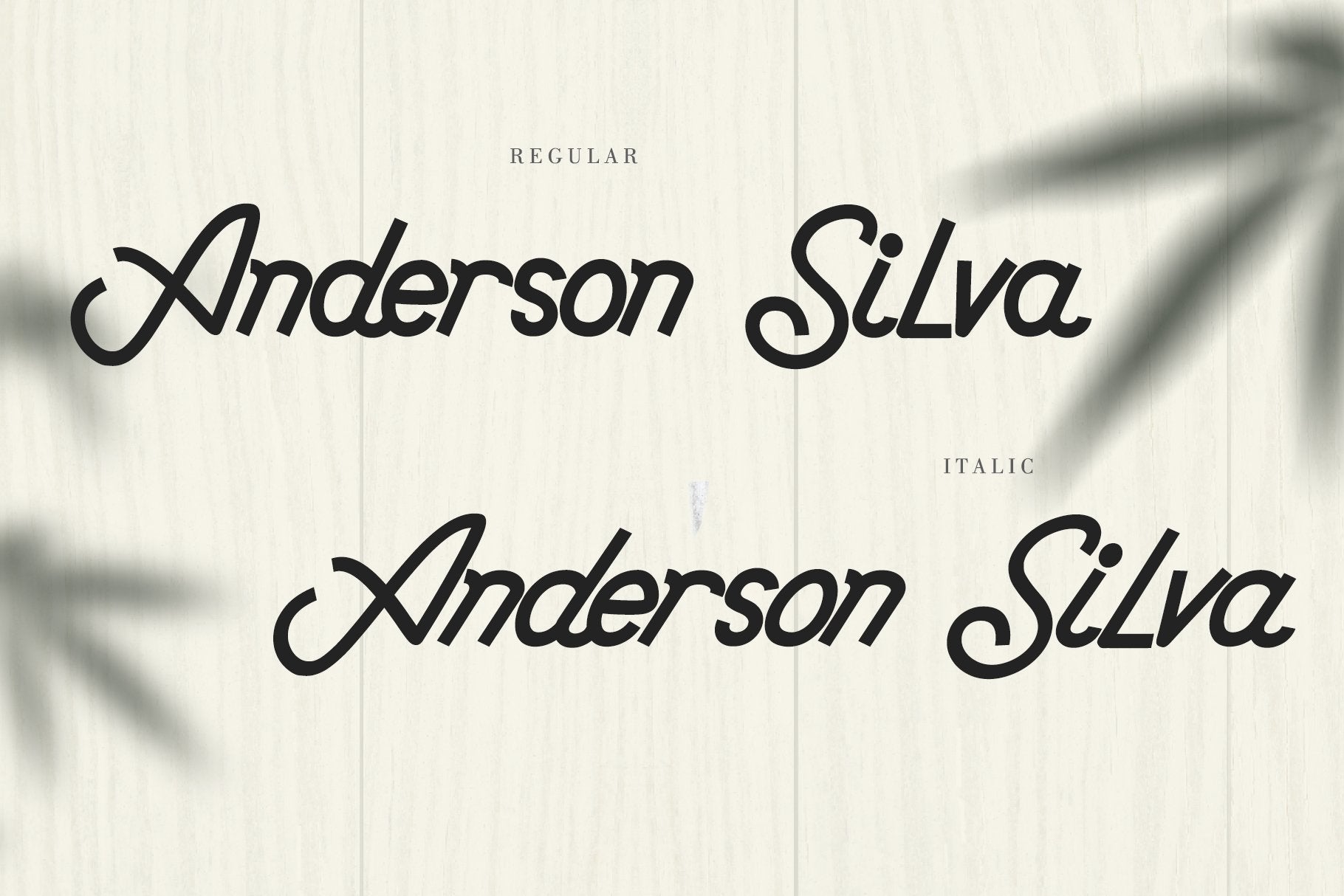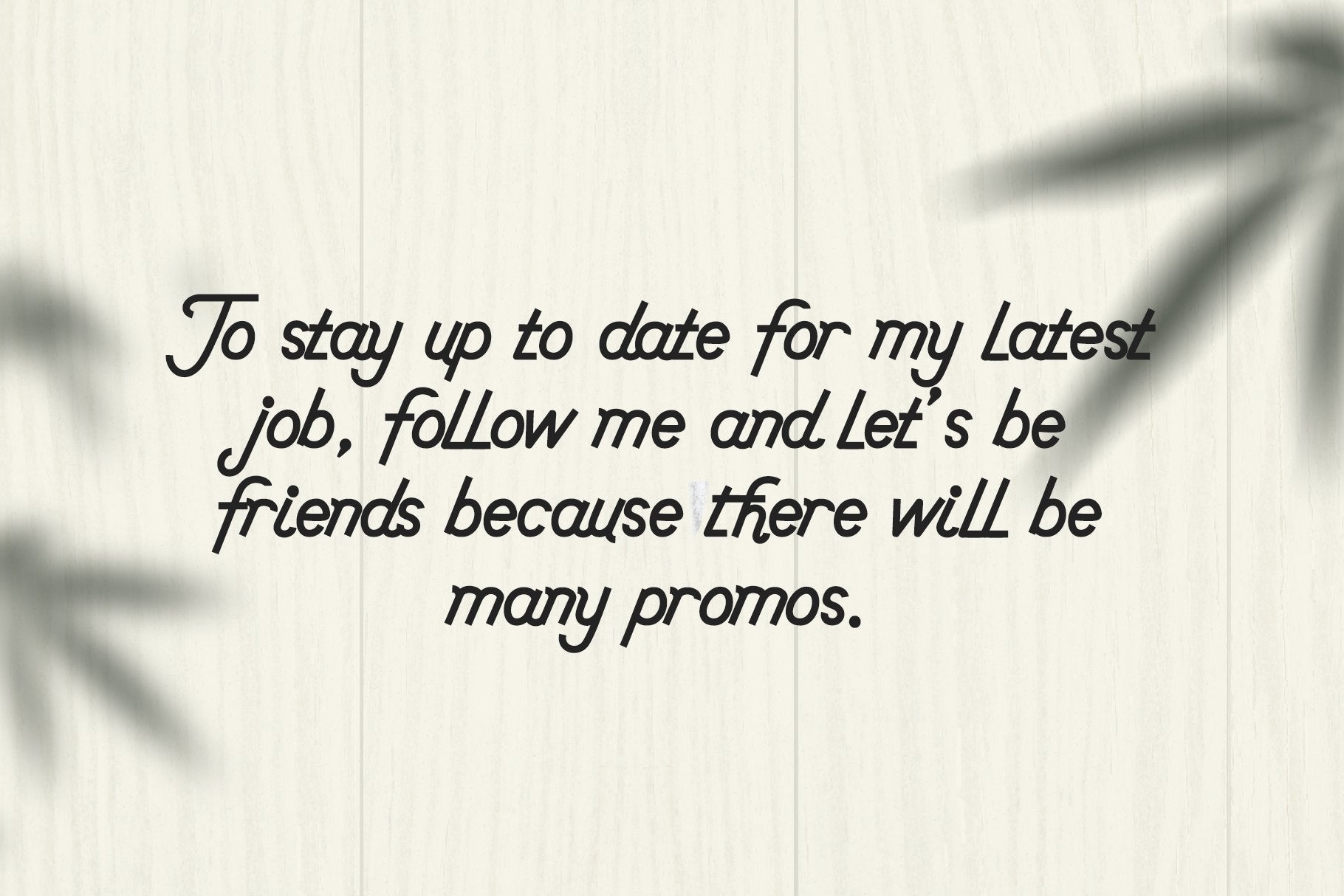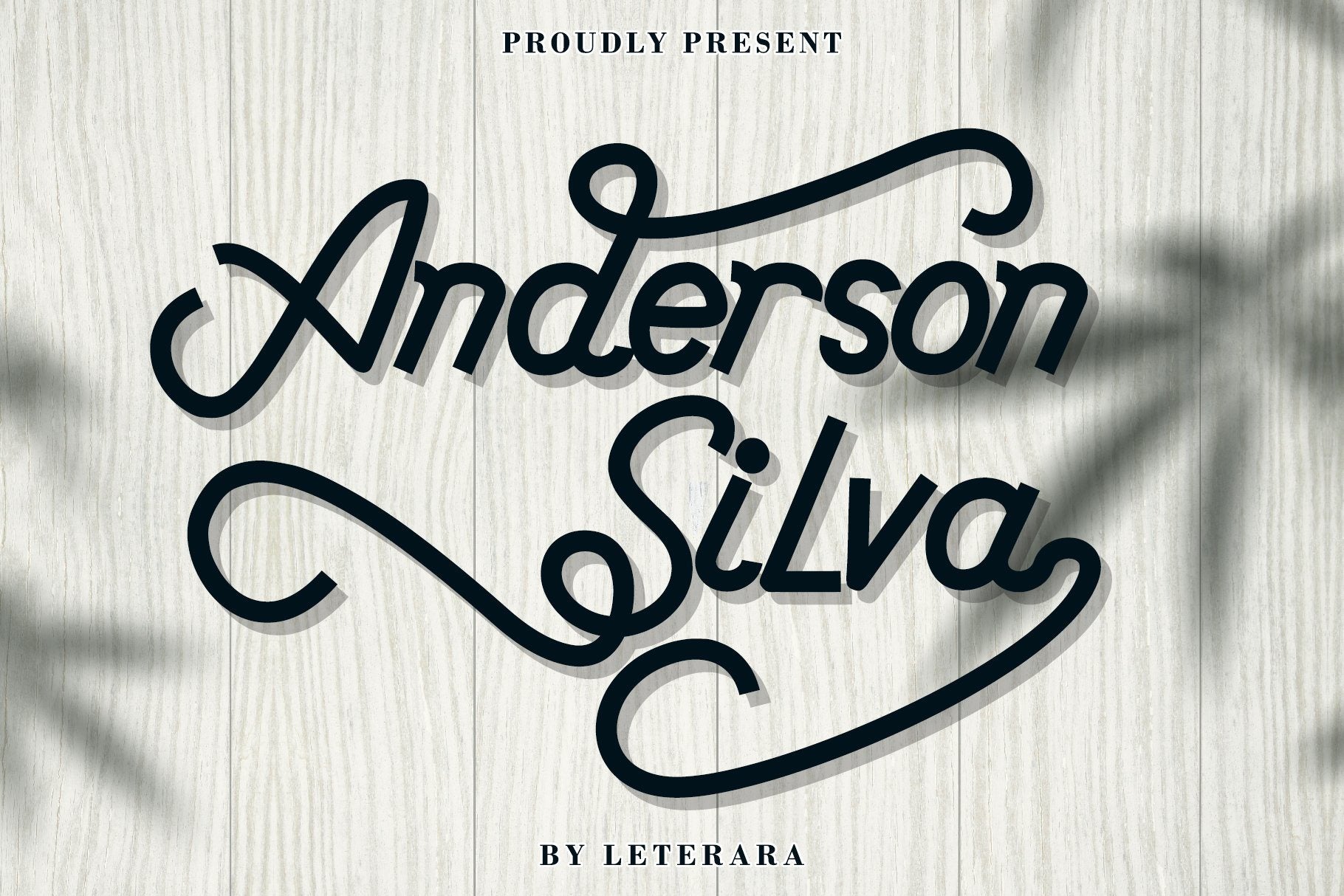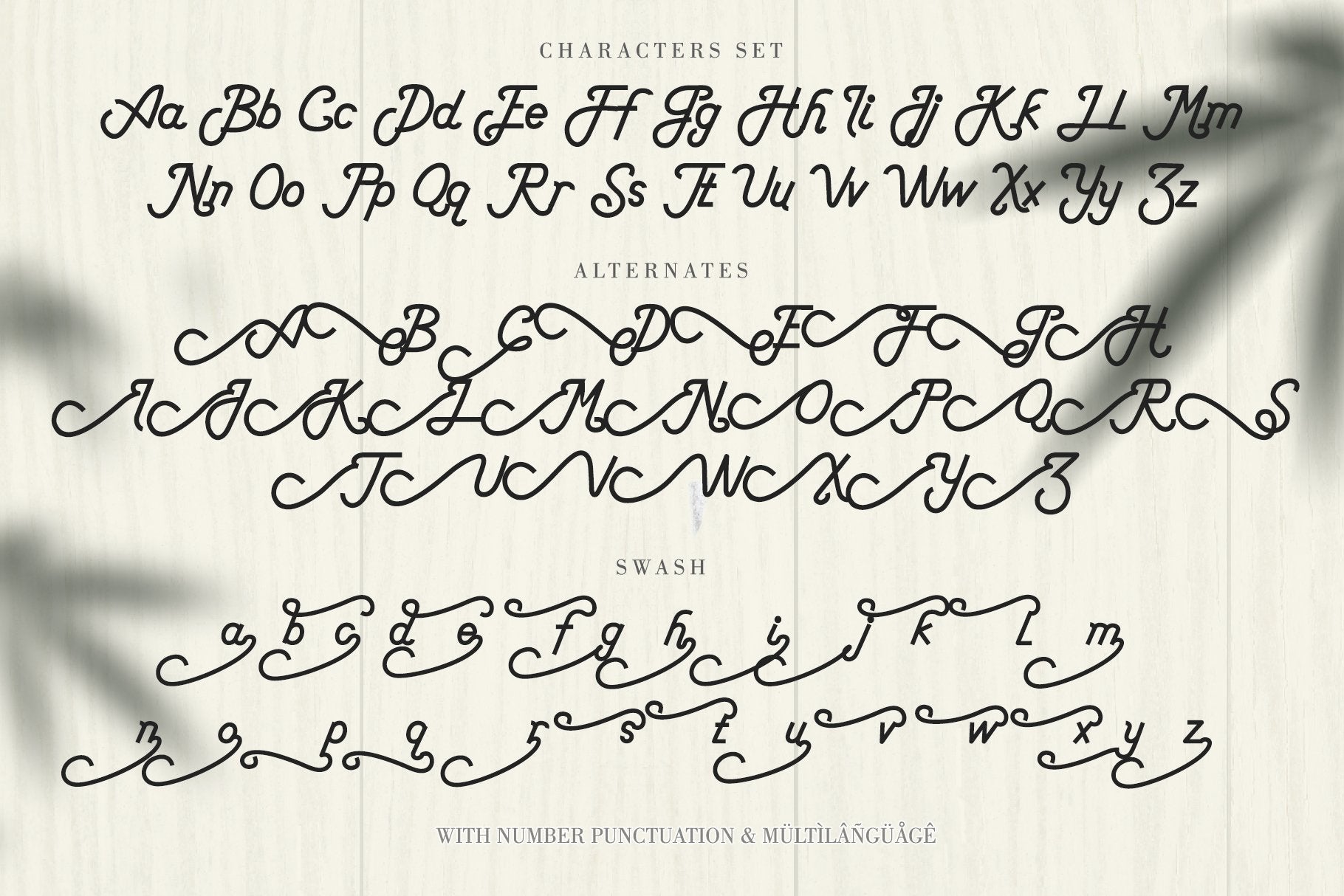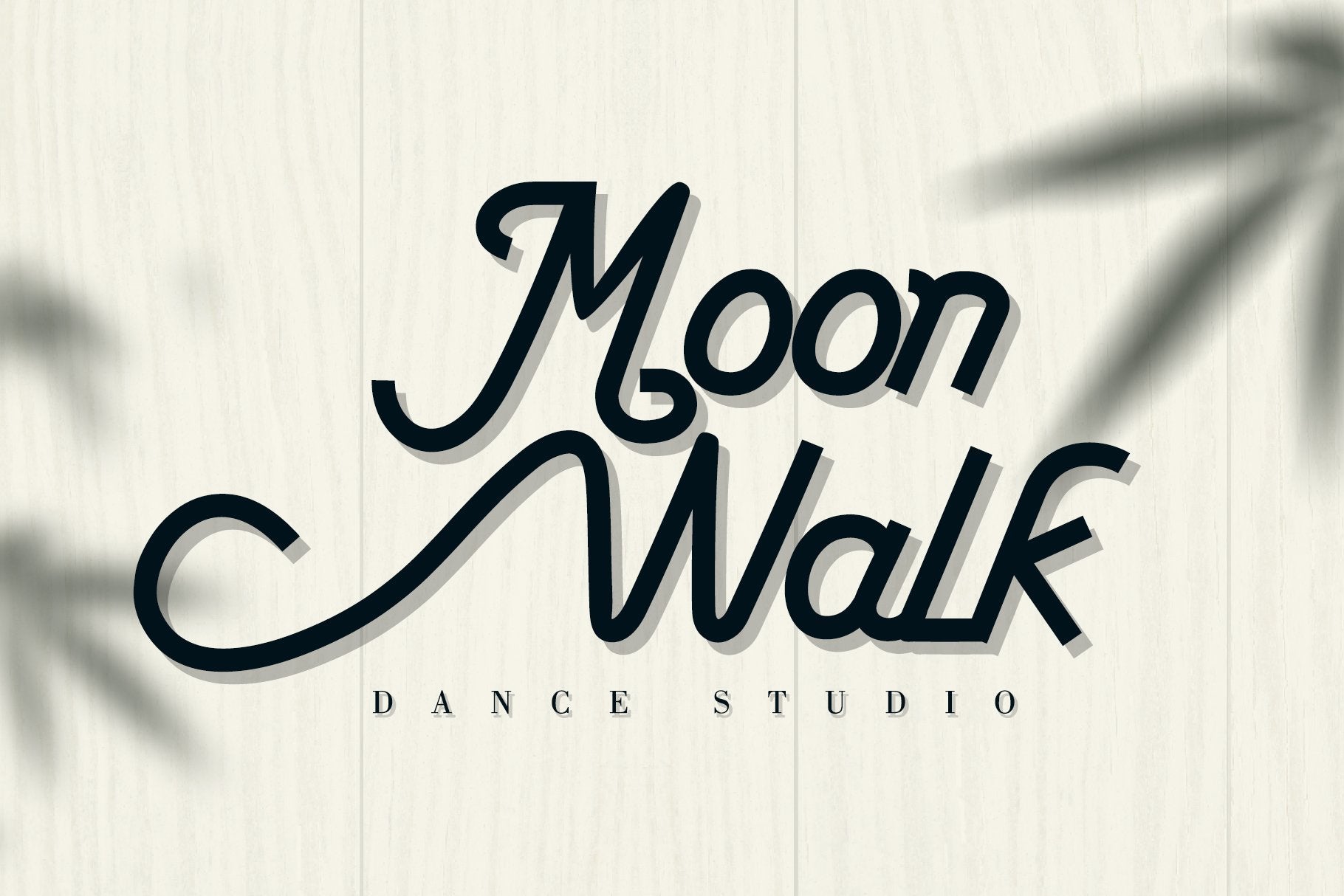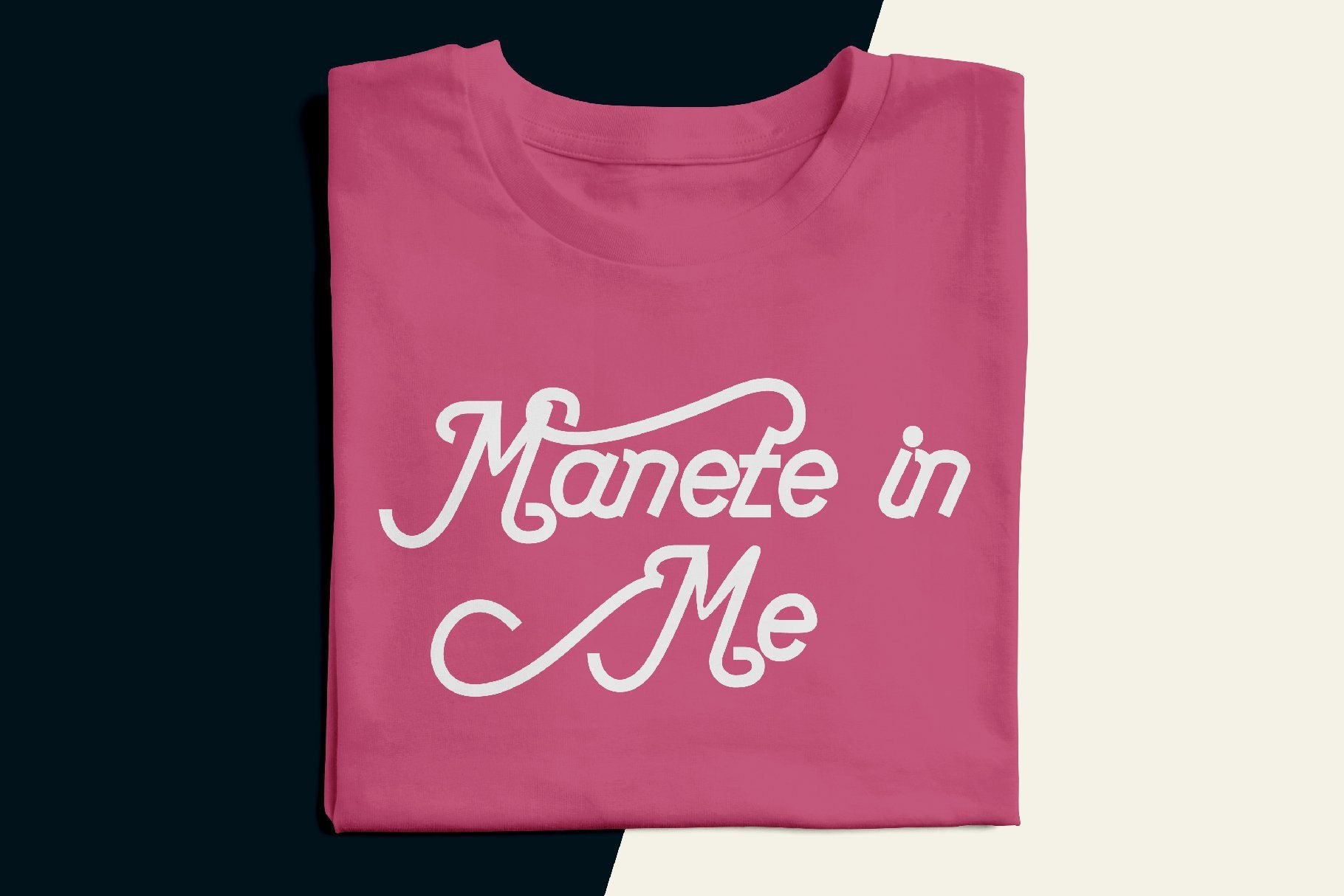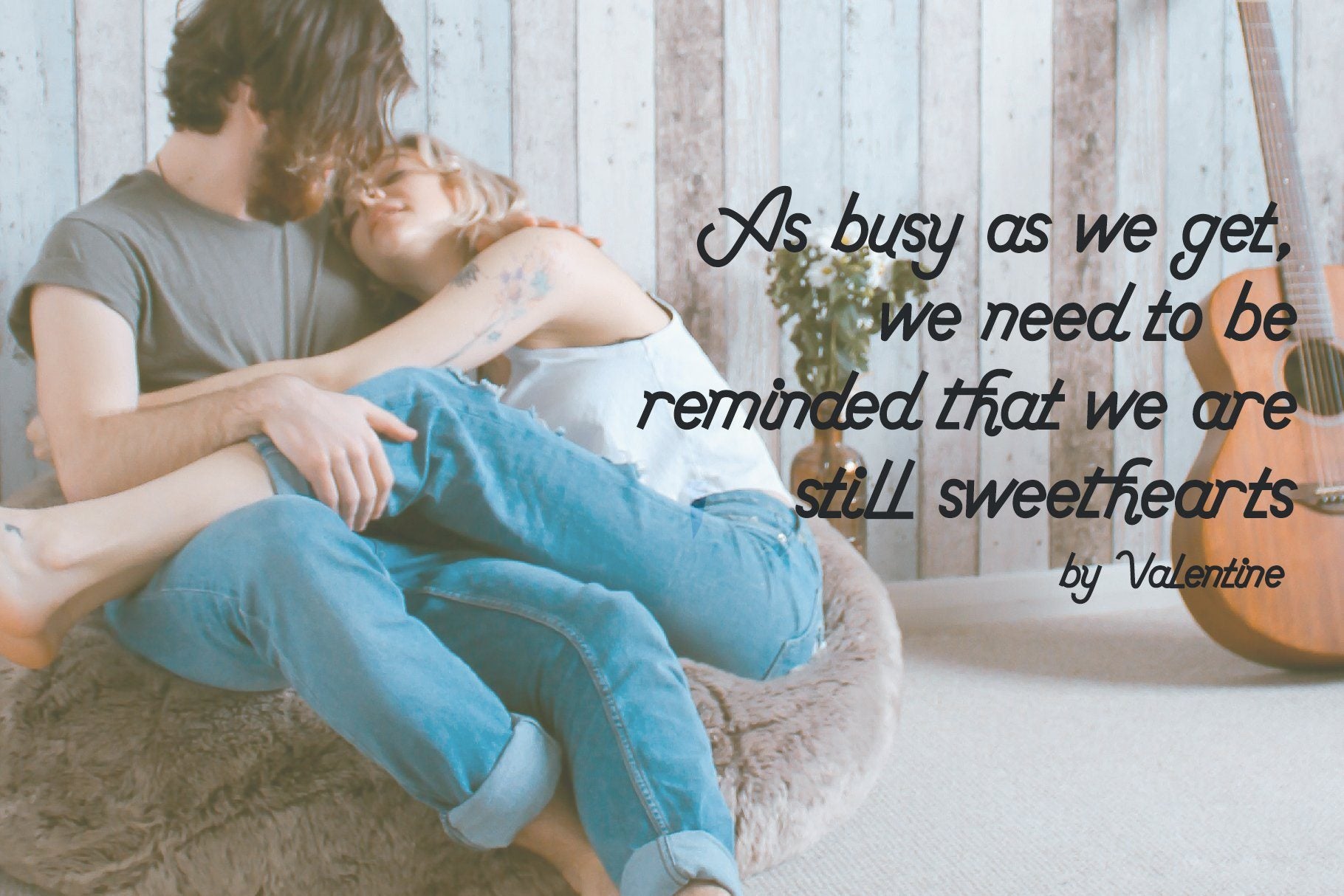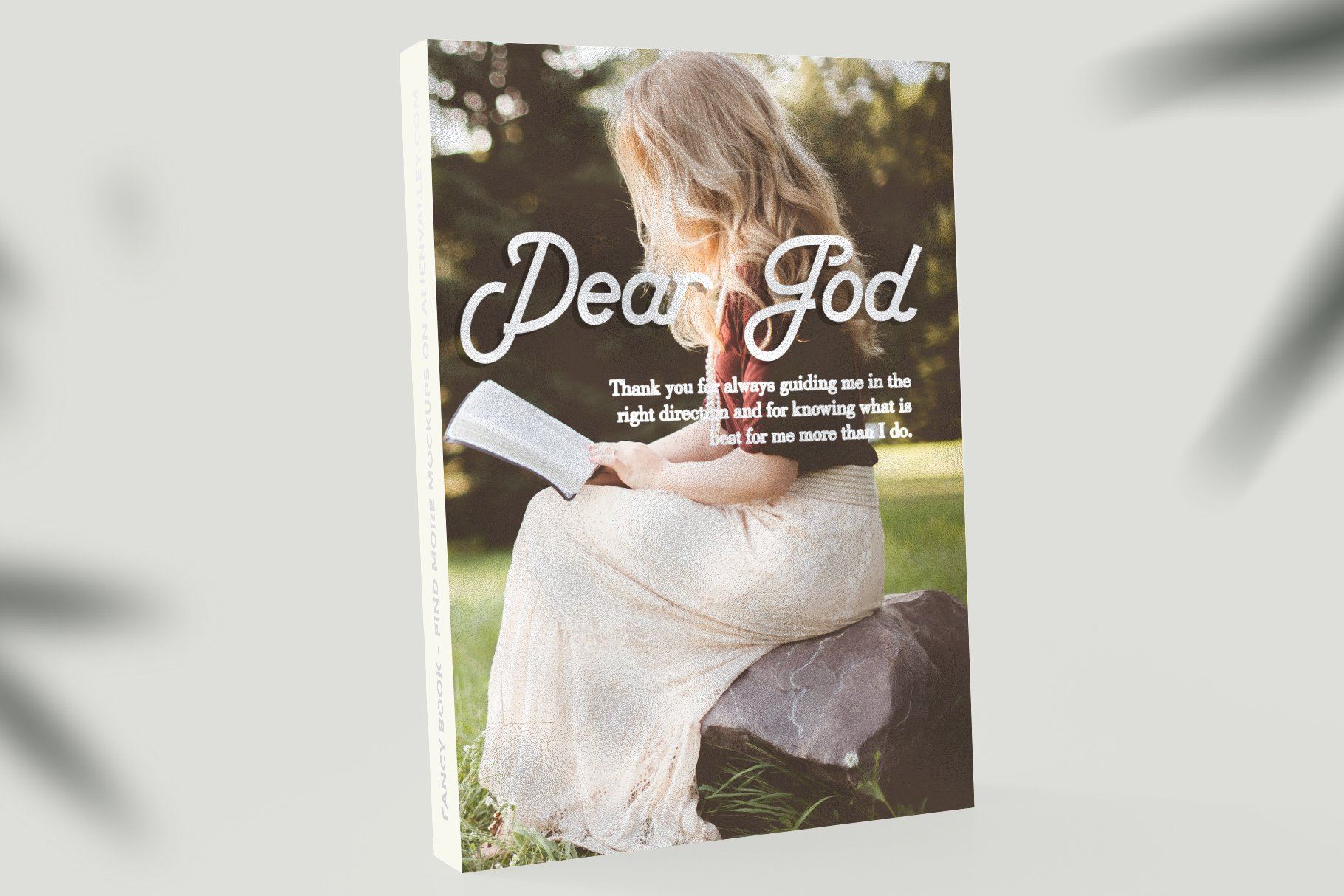
Anderson Silva
Anderson Silva is a monoline script that looks elegant and classy. It will add a charming touch to any crafting project! What’s included: Anderson Silva (OTF/TTF/WOFF) The style in this font include: Regular, Italic Alternate, ligature, and Swash Works both on Mac & PC Simple installations Accessible in the Adobe Illustrator, Adobe Photoshop, Adobe InDesign, CorelDraw, even work on Microsoft Word. Support multilingual; ä ö ü Ä Ö Ü ß ¿ ¡ To access the alternate glyphs, you need a program that supports OpenType features such as Adobe Illustrator CS, Adobe Photoshop CC, Adobe Indesign, and CorelDraw. More information about how to access alternate glyphs, check out this link ( http://goo.gl/ZT7PqK ) don’t wait anymore, put it in your shopping basket 🙂 and follow me, because there will be many promos! Our other products : BEST SELLER REINDEER SNOWKY BRUSH GAMOS HERTINA JENNIE ANTIKA AURORA BLACK PINK SIGNATURE California Street BESTOWENS FAMILY